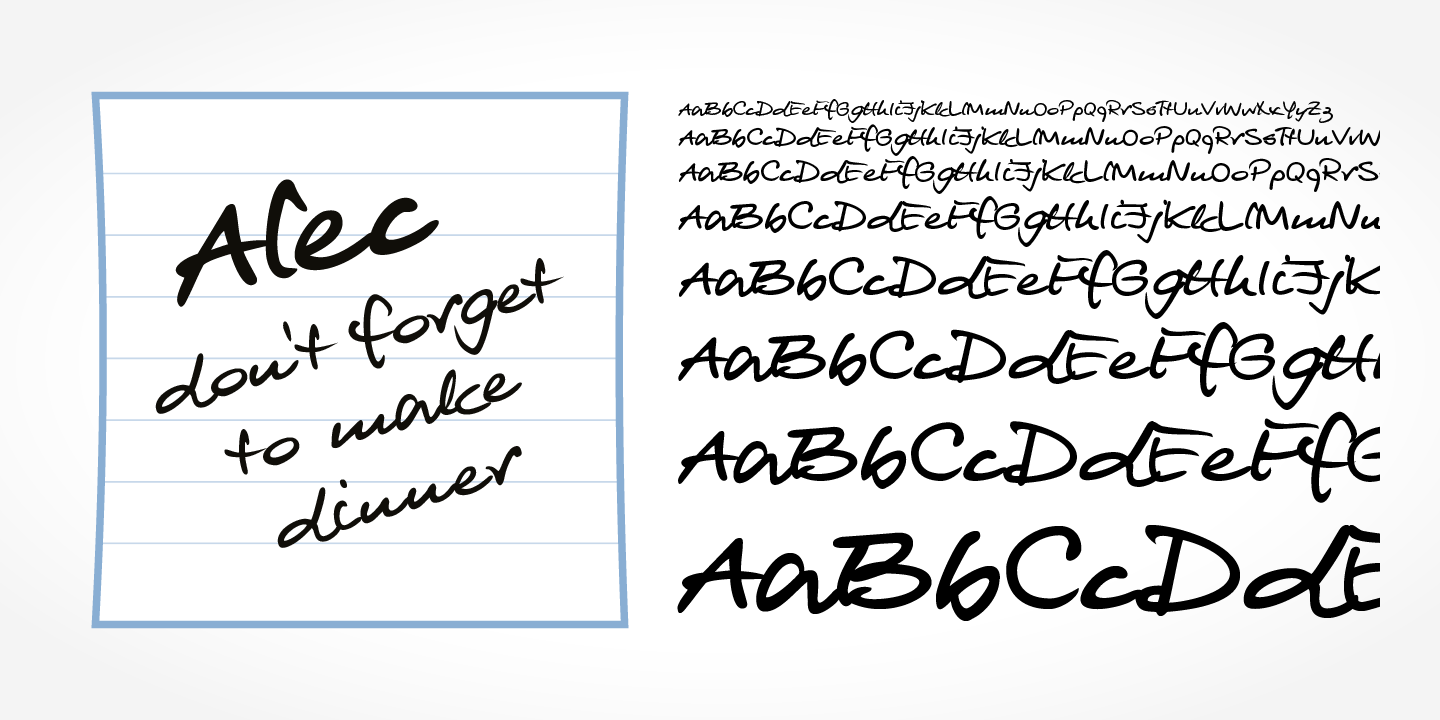
The Alec Handwriting Font is ideal for personal journal designs, handwritten letter templates, intimate greeting cards, custom wedding invitations, personal branding projects, artisan craft labels, handmade product packaging, and authentic signature applications. This personal typeface excels in applications where genuine human touch and individual character need to be emphasized, making it perfect for brands that want to communicate personal authenticity and heartfelt connection through naturally flowing, handcrafted typography.
What makes Alec Handwriting Font exciting is its authentic personal character and genuine handwritten warmth that captures the essence of individual expression and intimate communication. The font's natural letterforms and personal writing style create an atmosphere of heartfelt sincerity and human connection, making it ideal for brands that want to establish genuine relationships with their audience through personal, handcrafted authenticity. Its intimate presence ensures that every application feels personally written with authentic individual character and emotional warmth.
The Alec Handwriting Font family typically includes regular and bold handwriting variations, often featuring natural writing variations, personal flourishes, and authentic pen stroke elements that enhance its handcrafted appeal. Many versions include signature styles, personal alternates, and specialized characters that provide designers with comprehensive tools for creating authentic handwritten design projects with genuine personal touch and individual sophistication.
For designers working on projects that require personal authenticity and handwritten credibility, Alec Handwriting Font Free Download delivers exceptional individual appeal. Its ability to instantly communicate personal touch and genuine emotion makes it an invaluable choice for personal brands, artisan businesses, and any project requiring typography that embodies the warmth of personal communication, the authenticity of handwritten expression, and the intimate appeal of individual character and heartfelt personal connection.